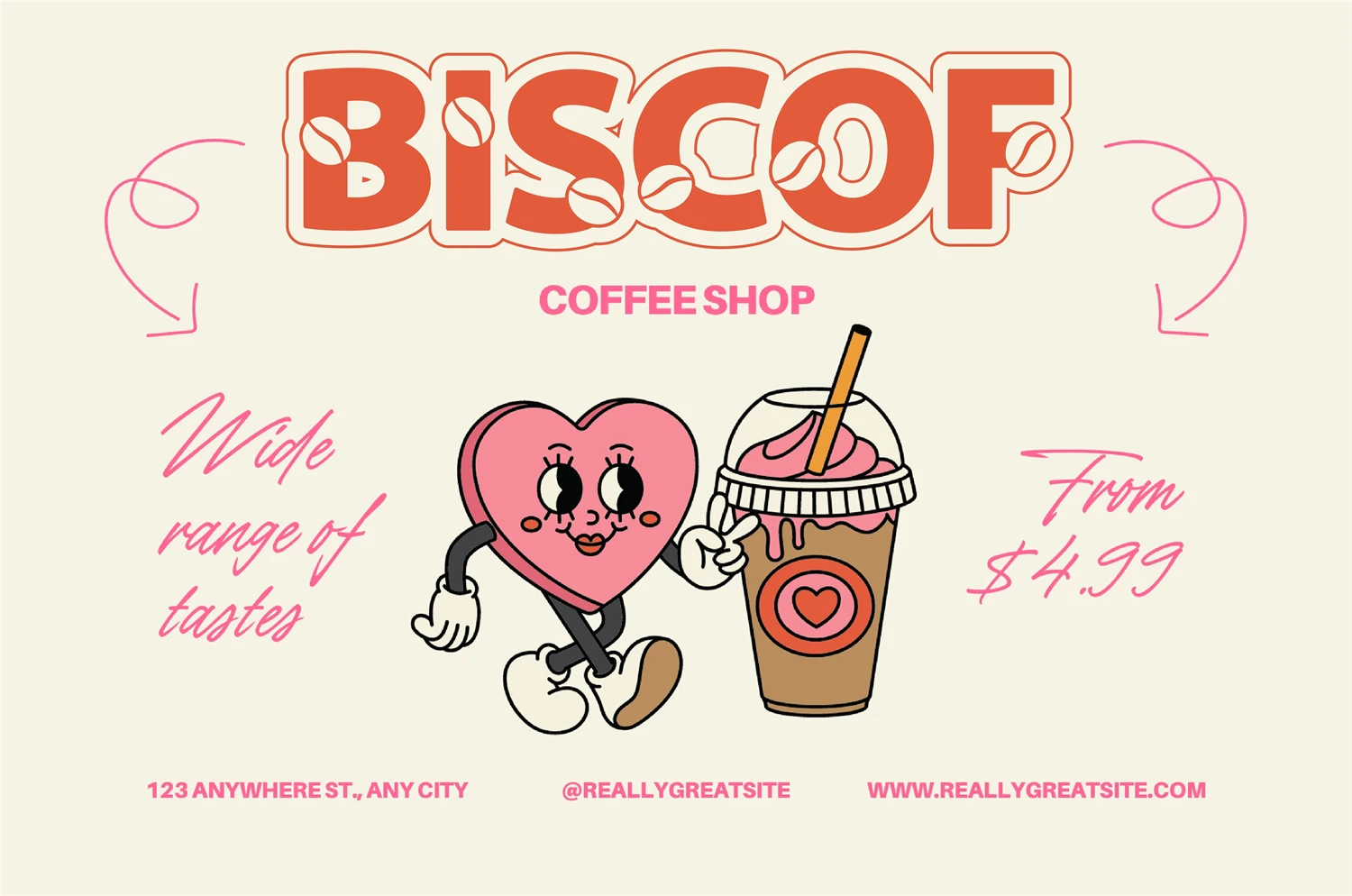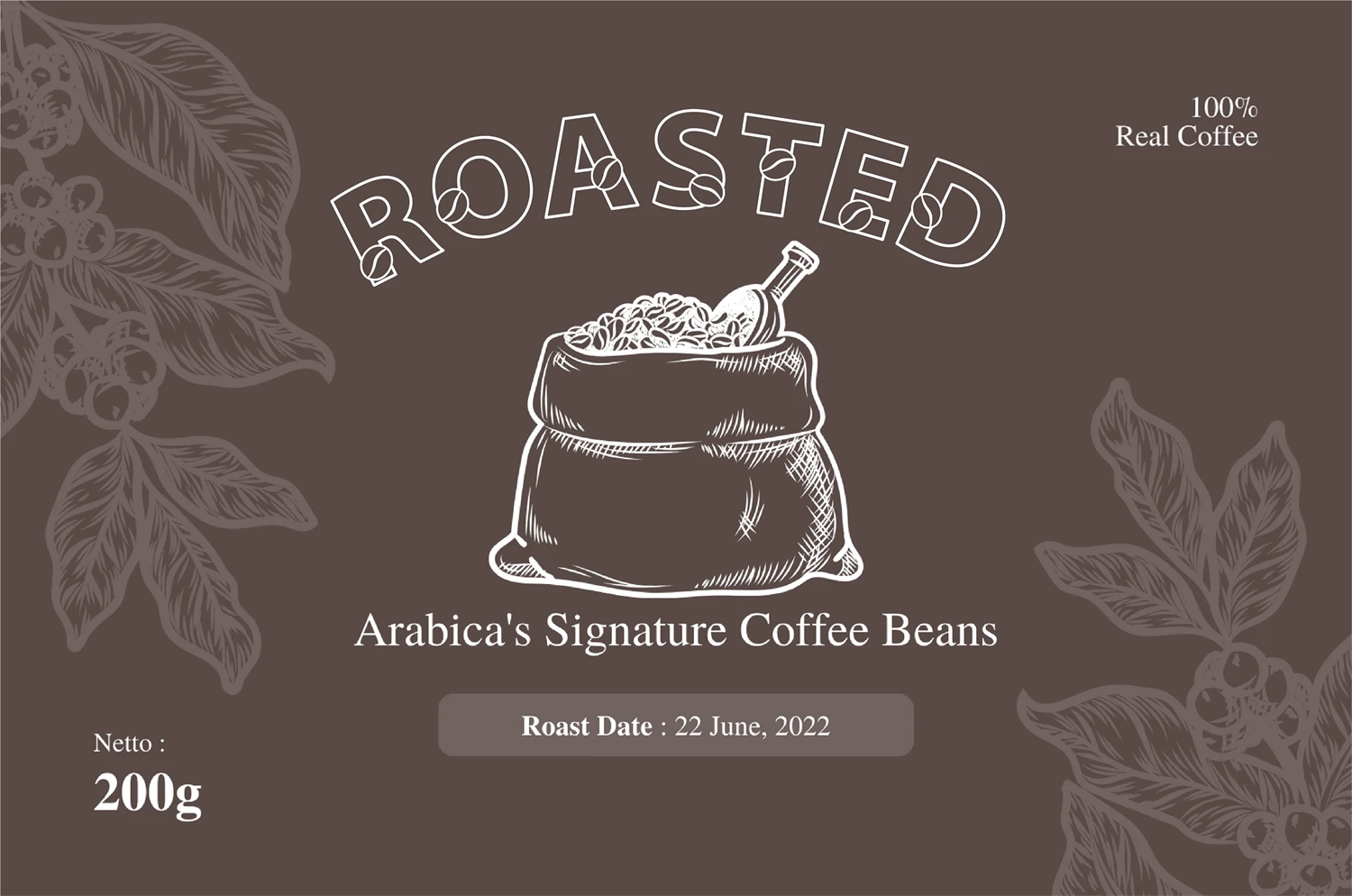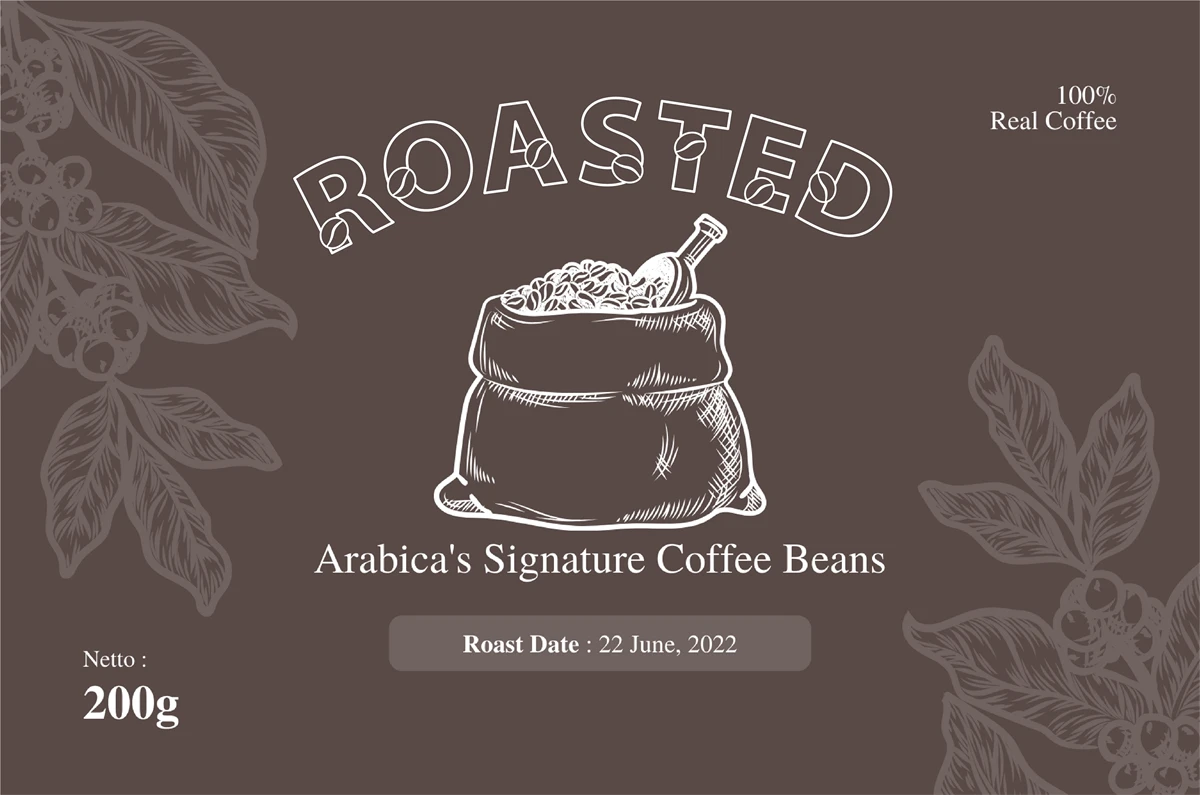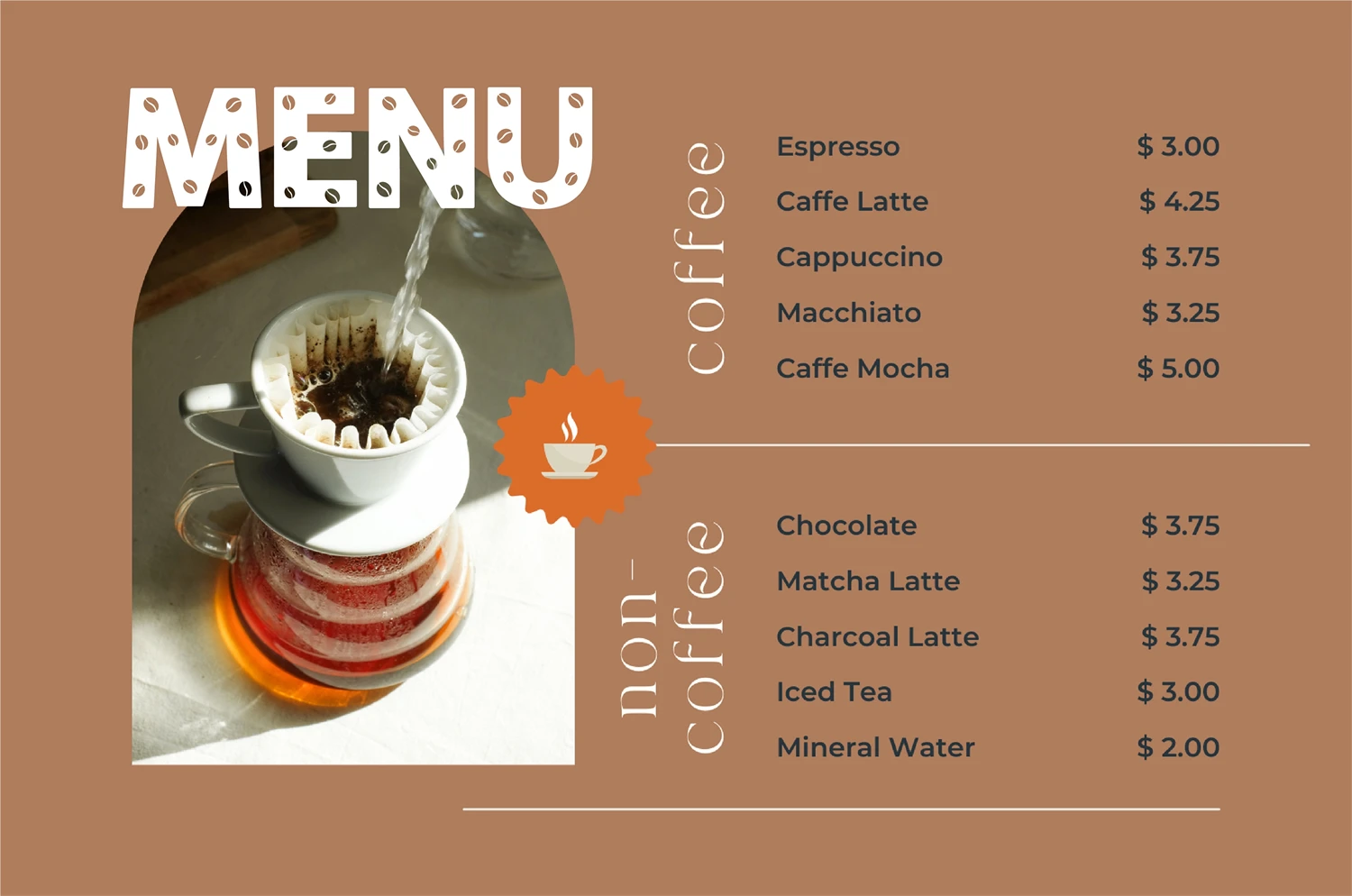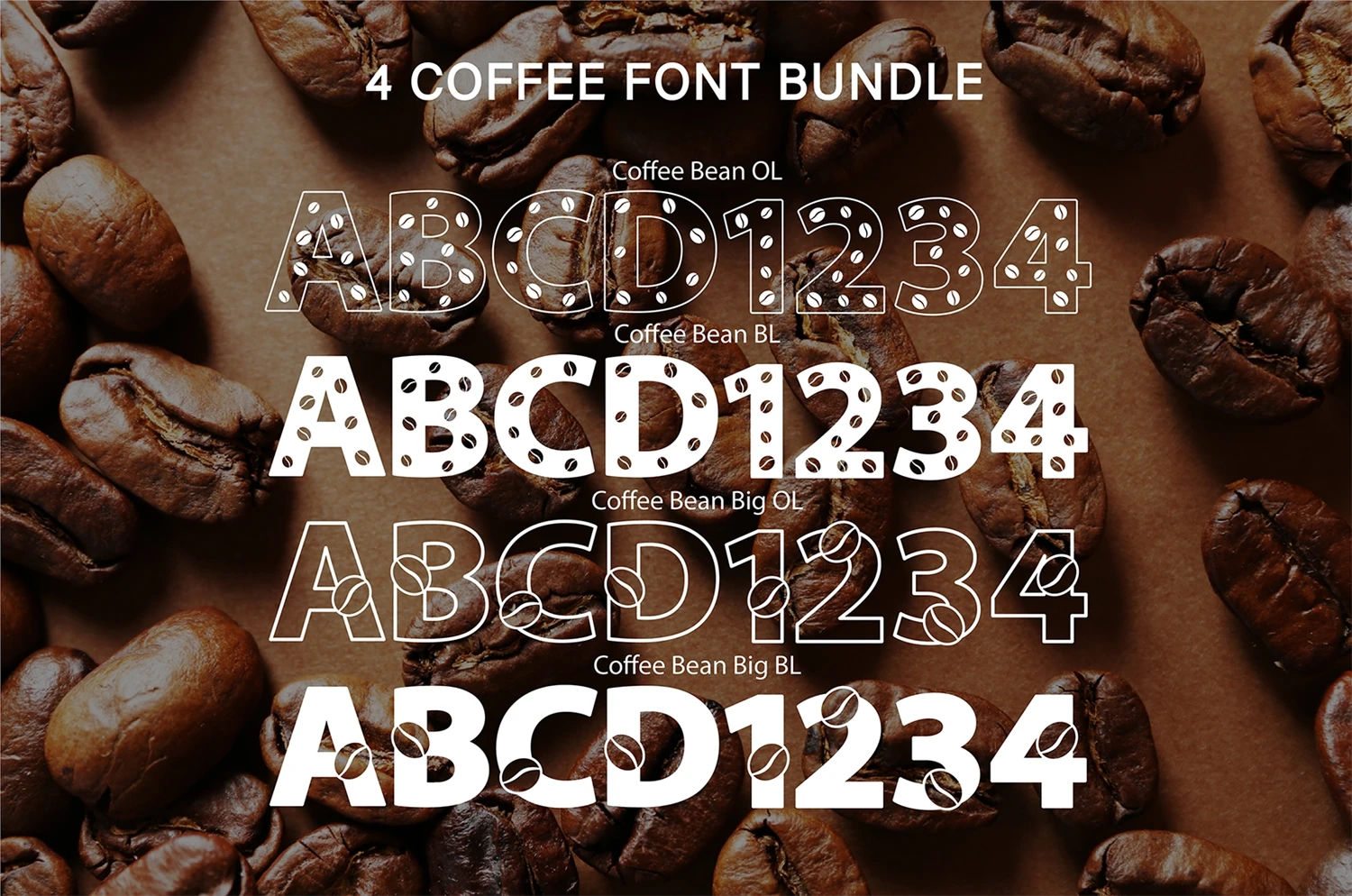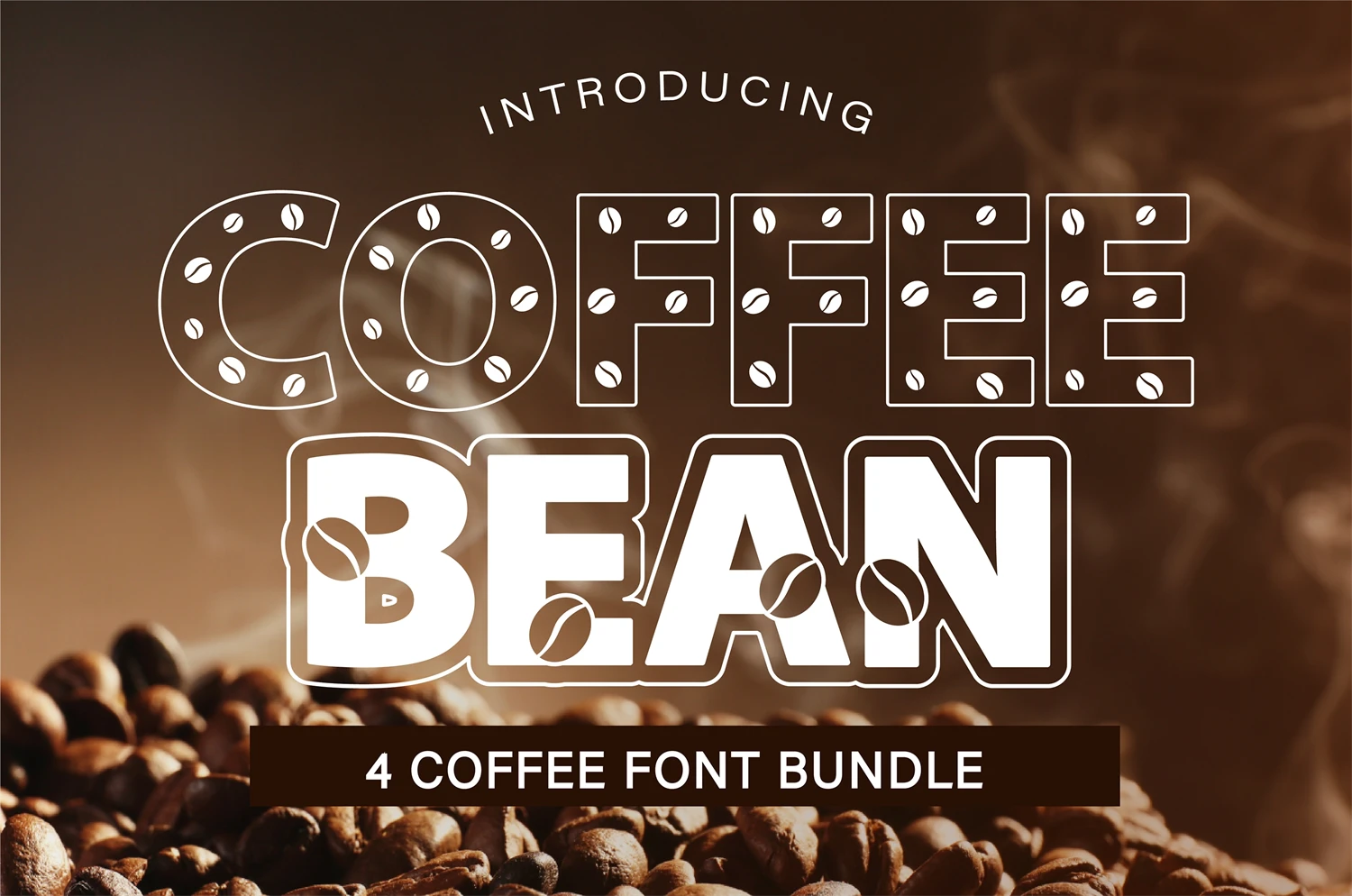
Coffee Bean 4 Bundle Font, Caffeine Theme Font, Espresso Cup
Coffee Bean included 4 font bundle. Each one is decorate with coffee bean detail in outline and bold style. Perfect for create a coffee menu, brand theme, online post title, etc.